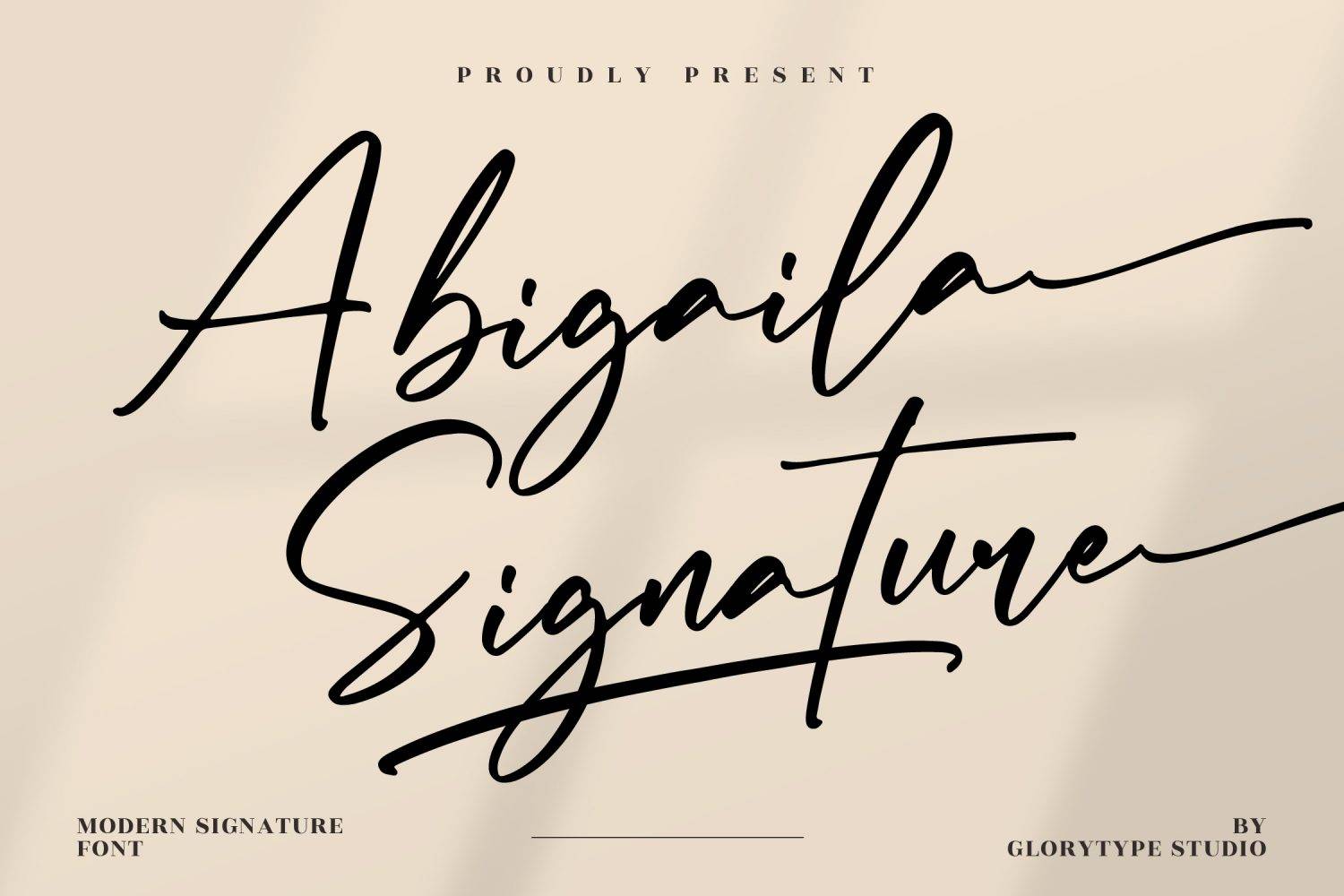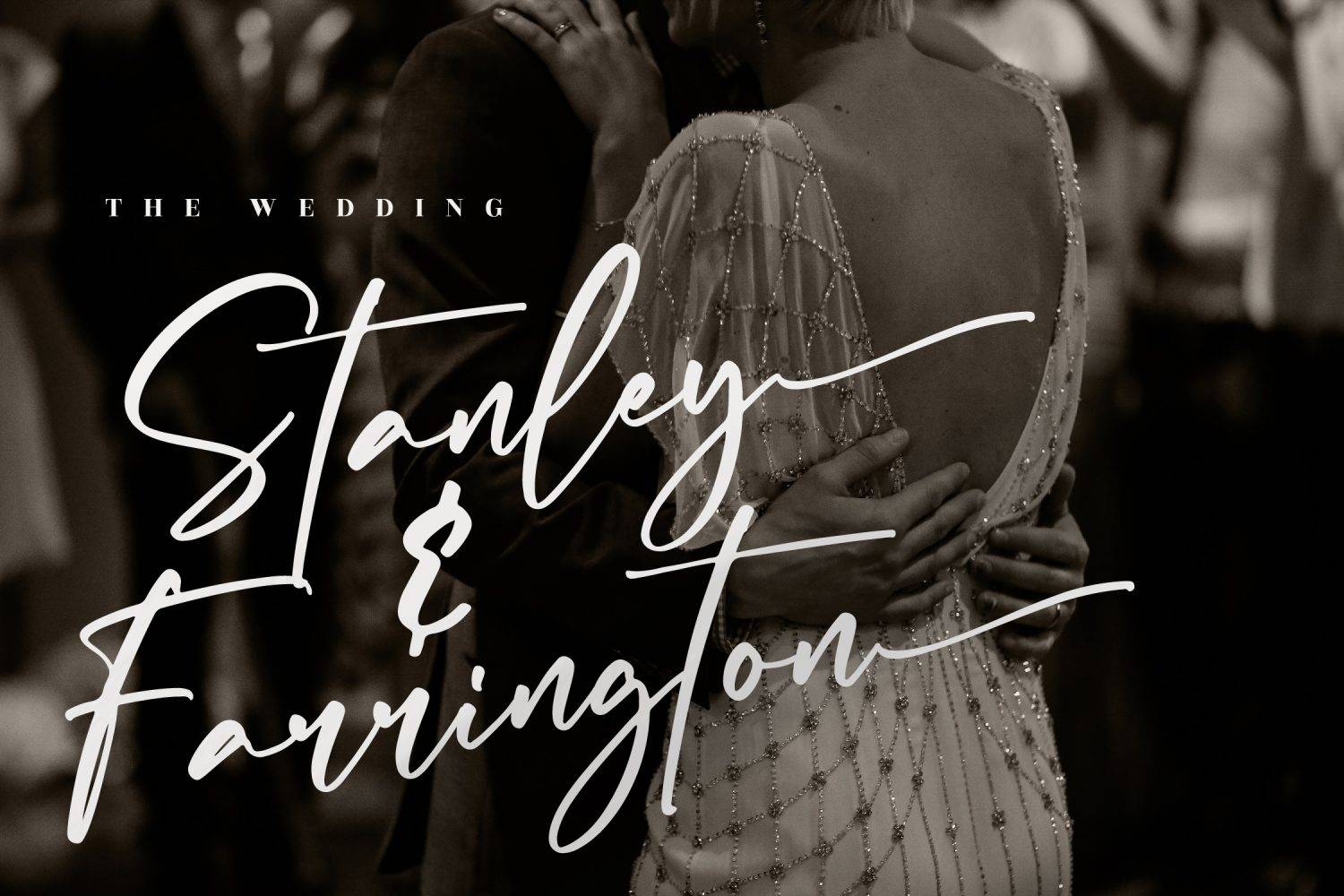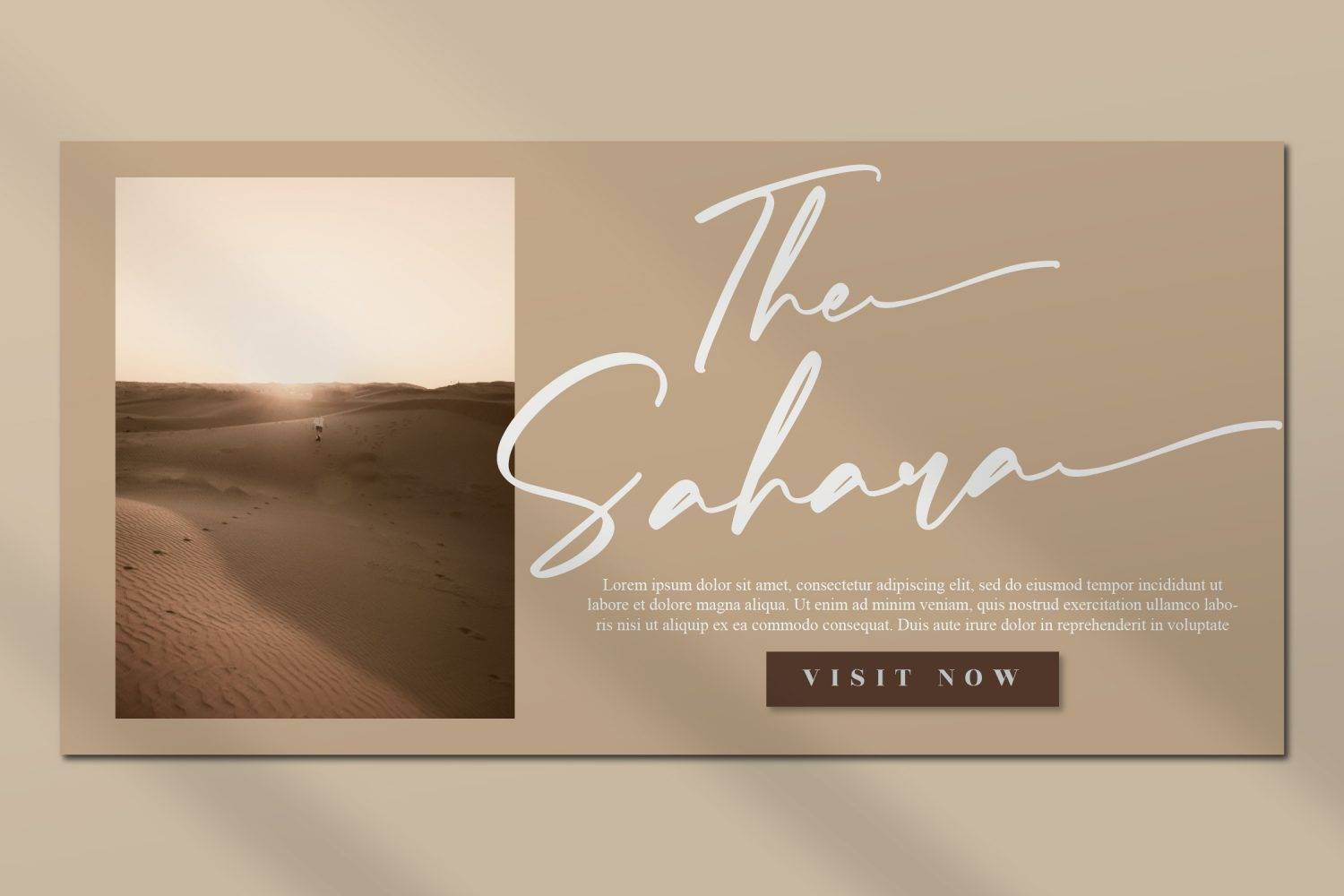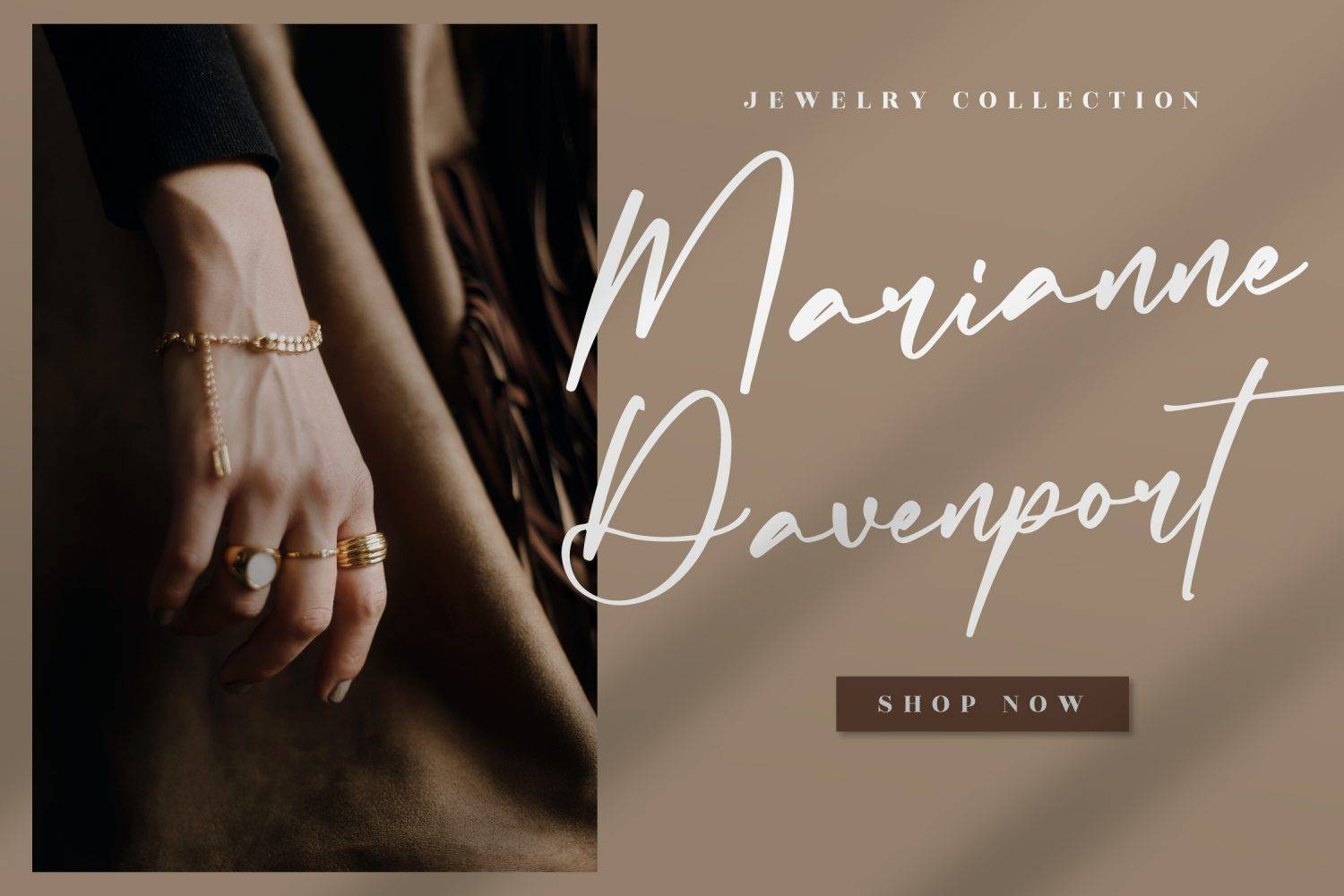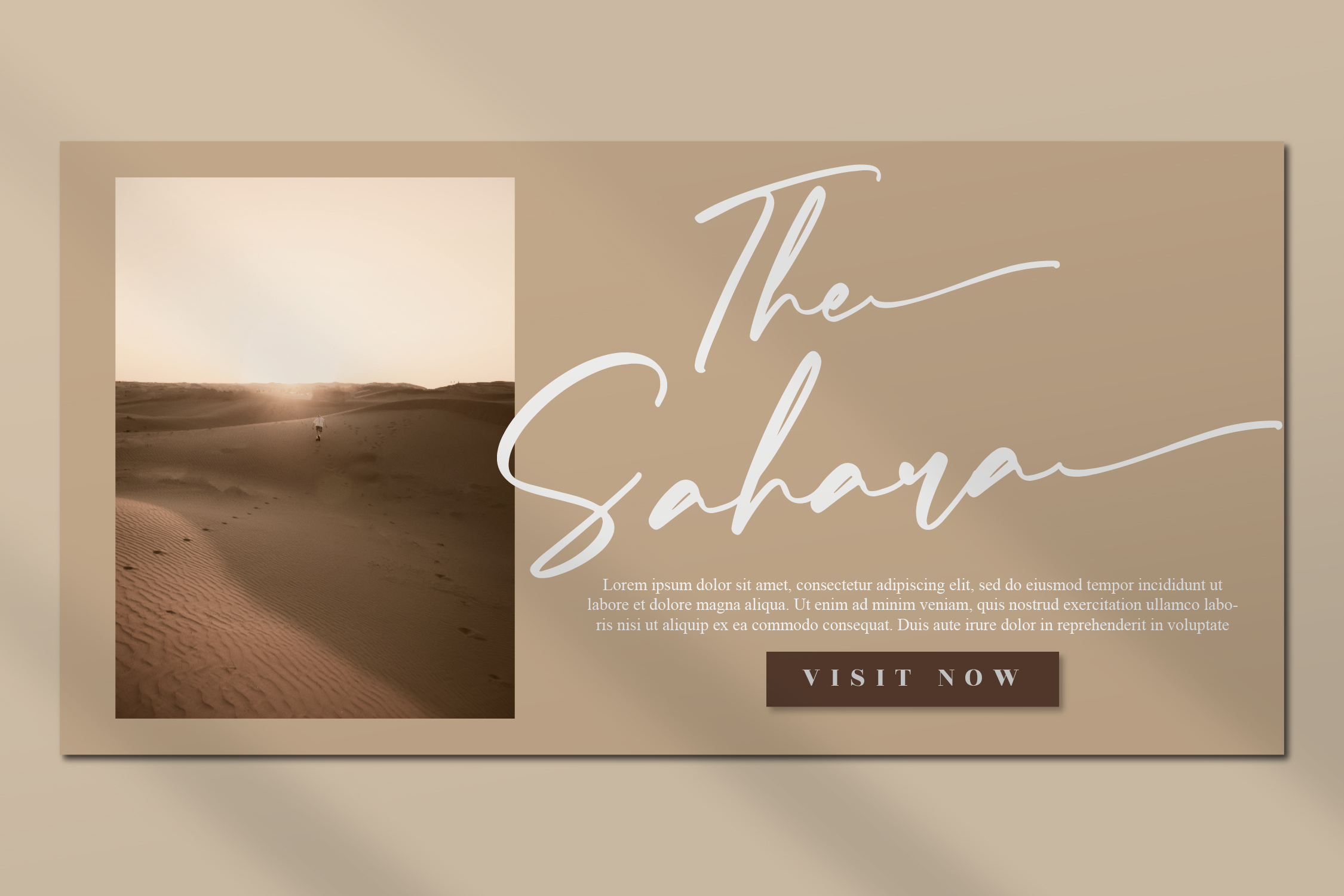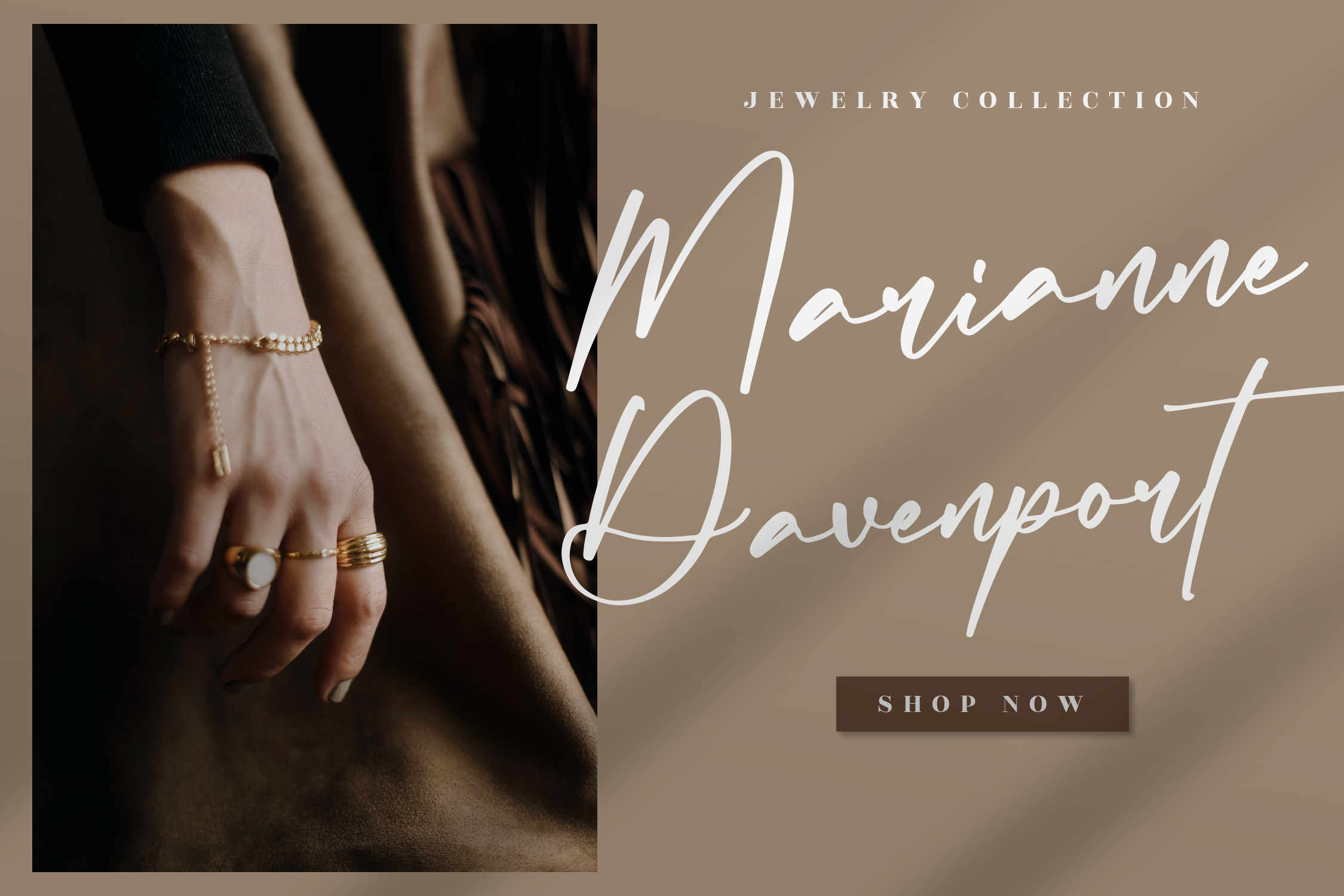
Abigaila Signature Font is an elegant, modern script typeface that mimics natural handwriting with a graceful, flowing style. Its thin, slightly varied strokes and smooth curves create a personal, sophisticated feel, making it ideal for branding, invitations, and fashion-related designs where a touch of refined individuality is desired. This font works especially well in logos and headlines, adding a stylish and intimate character to any project.
Abigaila Signature Font